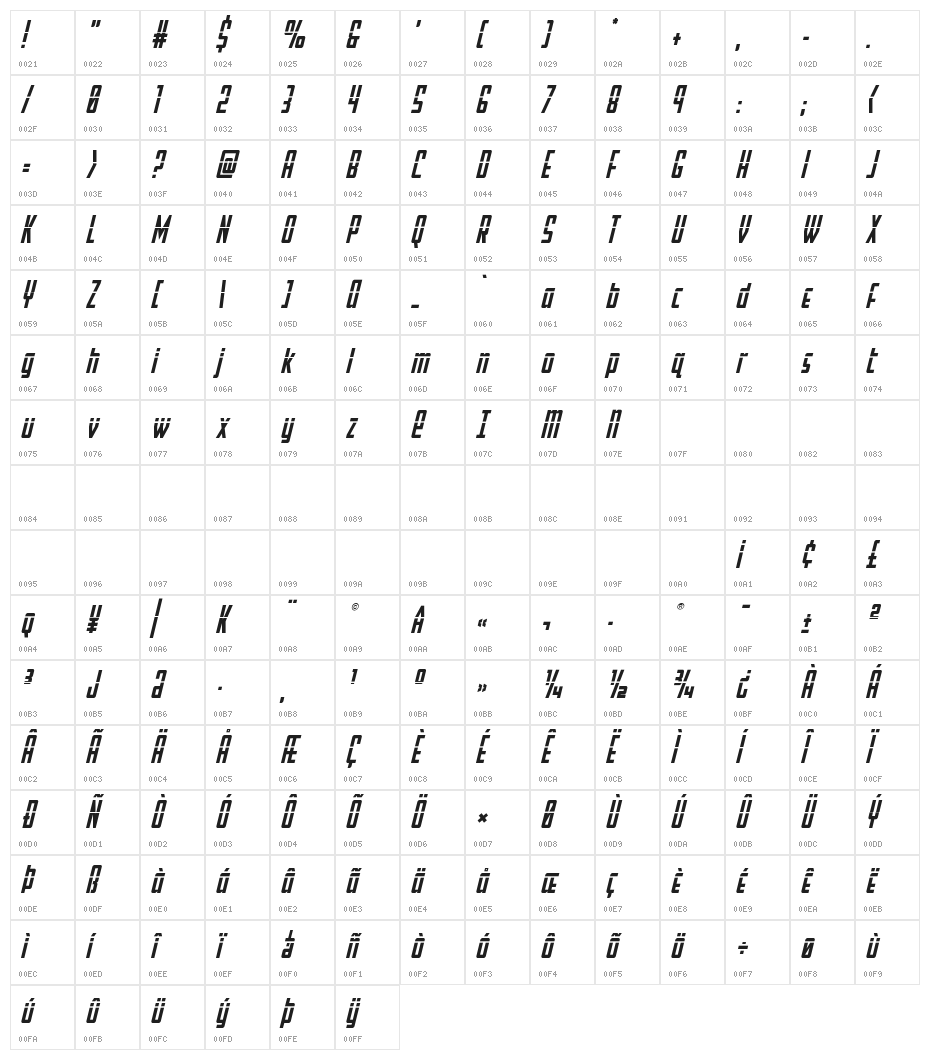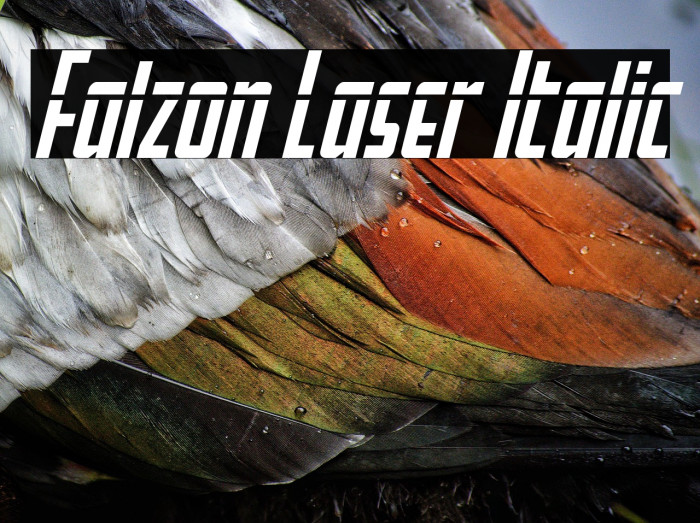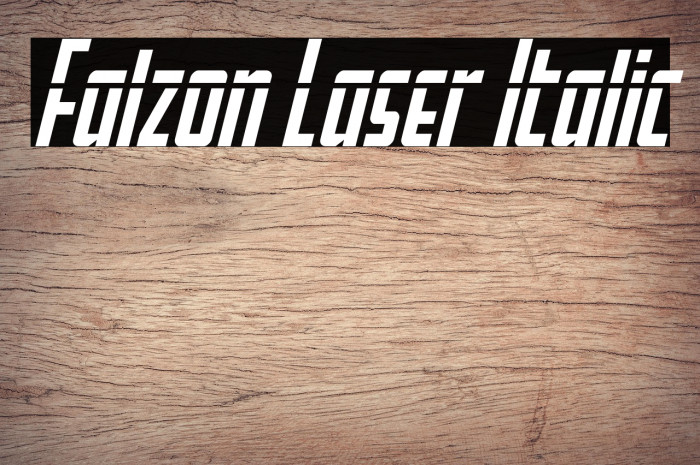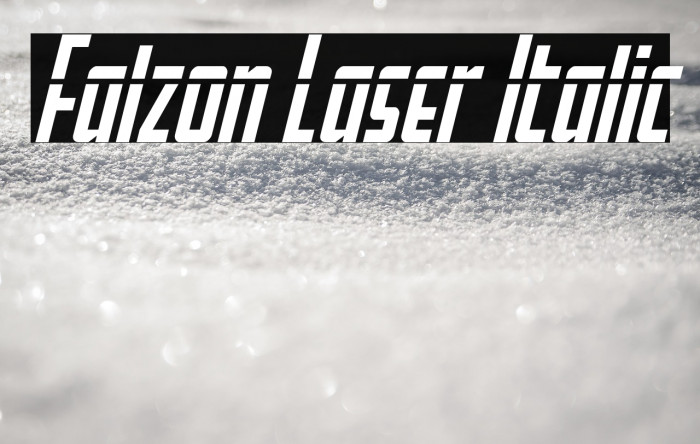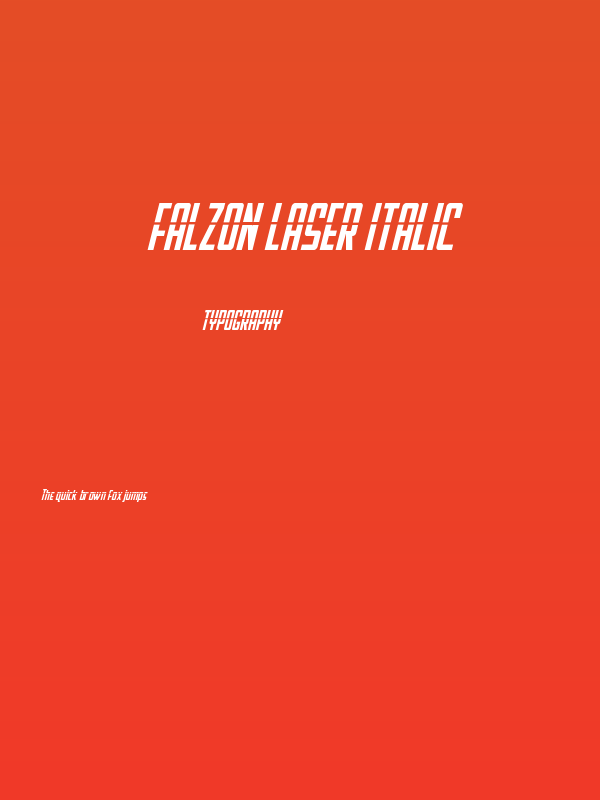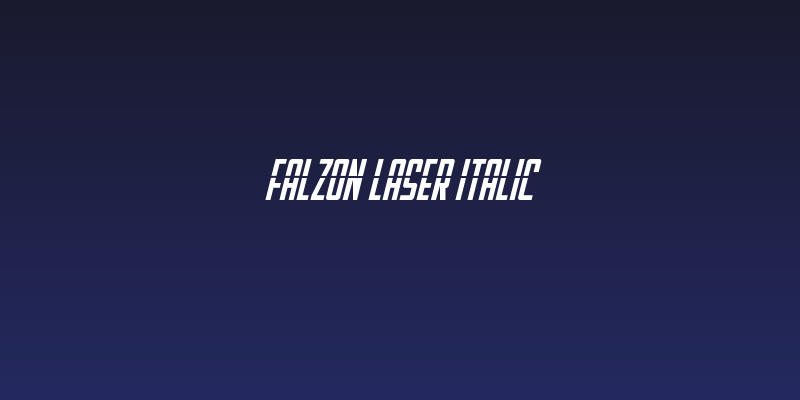
Falzon Laser Italic Font
Falzon Laser Italic Description
This font features a dynamic and modern design, characterized by its italicized and slanted letterforms that convey a sense of speed and motion. The characters are bold with a distinct geometric structure, giving them a futuristic and edgy appearance. The uppercase and lowercase letters maintain a consistent style, with sharp angles and clean lines. The numerals and special characters are equally stylized, ensuring uniformity across all glyphs. This font's unique style makes it stand out, suitable for projects that require a contemporary and energetic look.
| Proposed Projects | Ideal for sports branding, tech-oriented designs, dynamic posters, and modern advertising. |